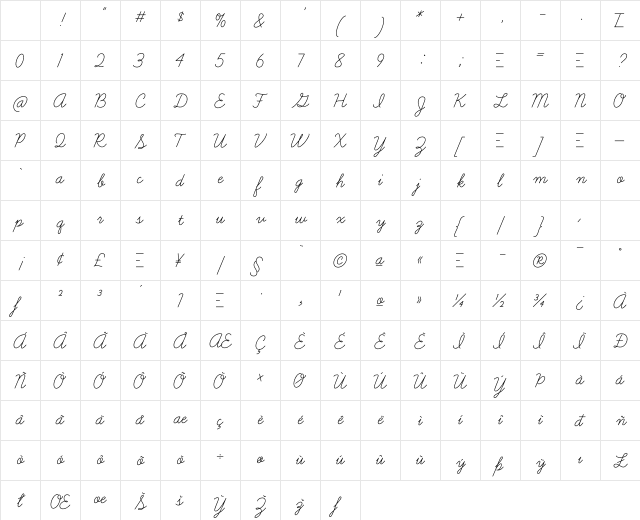
Complete Learning Curve Pro Regular glyph index. Displaying only characters natively supported by Learning Curve Pro Regular font.
Learning Curve Pro is a composed and adaptable typeface that performs quietly and consistently across a wide range of design contexts.